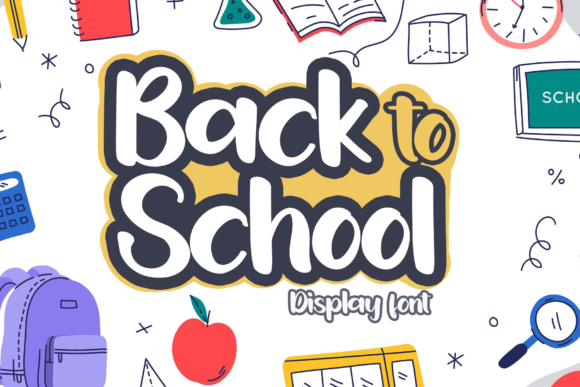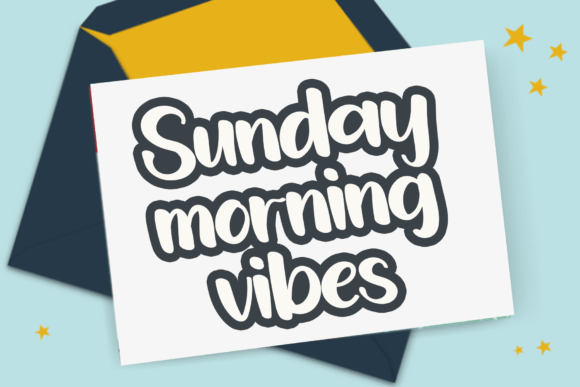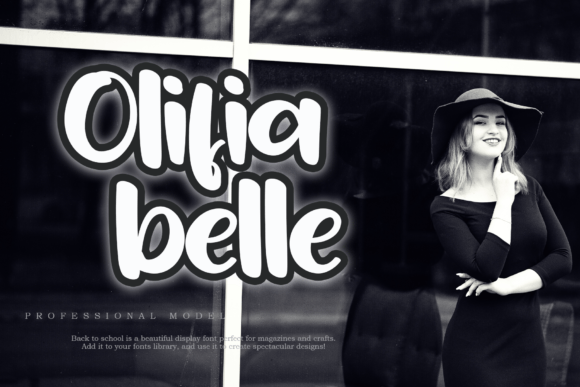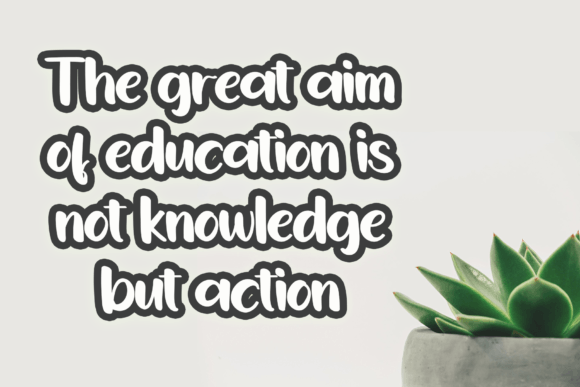
About the Back to School Font
Meet Back to School Font, a stunning font that brings a touch of elegance and professionalism to any design. Back to school is a cute groovy retro font perfectly suited for retro designs. It will be suitable for designing t-shirts, tote bags, hats, stickers, wedding designs, logos, cards, quotes, and more! This typeface will make any creative idea stand out and look stunning!
Back to School Font Usage Examples
Back to School Font Example